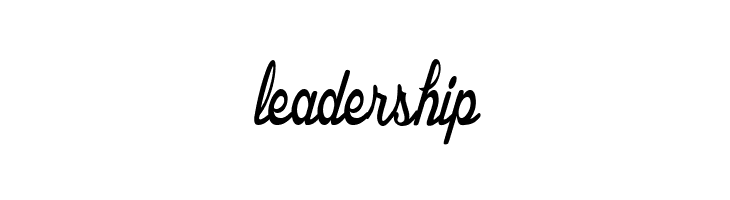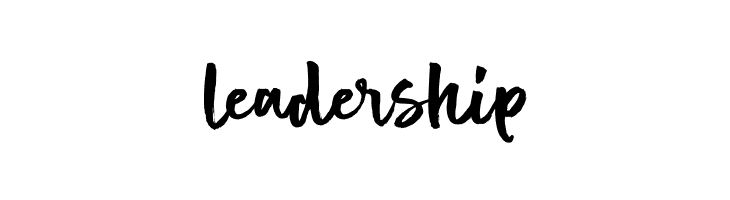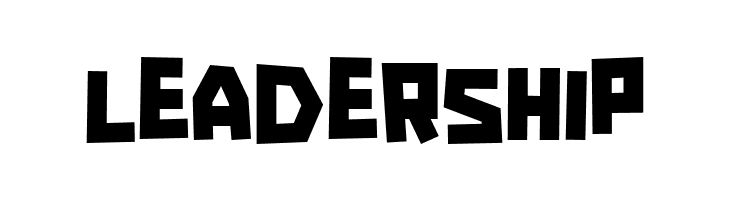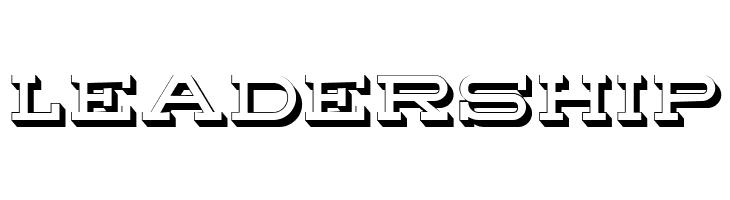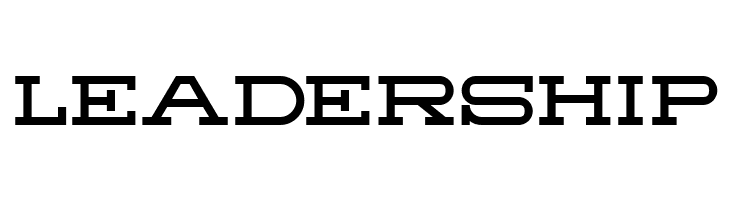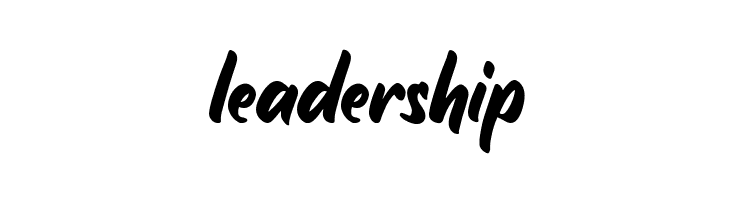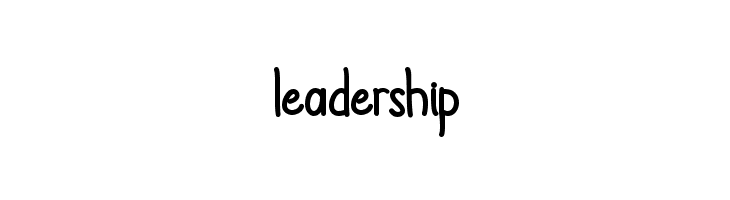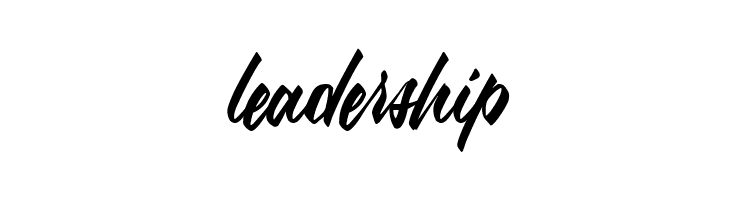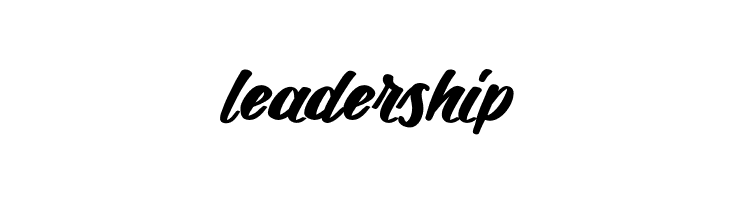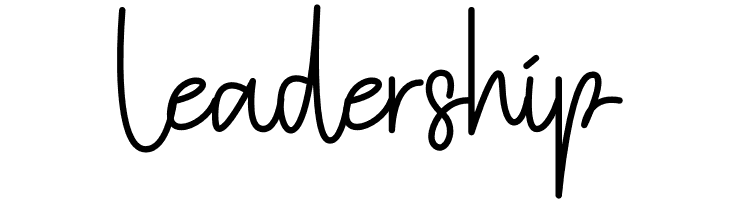
A playful, bold, and handwritten-style font with rounded strokes.
A bold, decorative font with integrated flame motifs for a fiery appearance.
A bold, expressive handwritten font with dynamic brush strokes.
A modern, geometric font with tall, narrow characters and consistent stroke width.
Tall, playful handwritten script with loose, flowing lines.
A playful, hand-drawn font with irregular, organic shapes and varying stroke thickness.
A bold, textured font with a hand-drawn, sketch-like appearance.
A bold, decorative font with a textured outline and dynamic style.
A bold, distressed font with a vintage, textured appearance.
A bold, textured font with diagonal lines for a modern, impactful look.
A bold, decorative font with vintage-inspired flourishes and artistic elements.
A bold, rounded font with a modern and playful aesthetic.
A bold, rounded font with a playful and retro vibe.
A playful, rounded font with a retro vibe and consistent stroke width.
A playful and eclectic font with bold and thin strokes, perfect for creative projects.
A sophisticated and fluid script font with a handwritten appearance.
A bold, jagged font with a fiery, energetic design.
A bold, angular font with a modern, edgy style.
A bold, dynamic script font with a handwritten, energetic style.
A bold, geometric font with a modern and technical style.
A bold, three-dimensional font with a geometric and modern style.
A bold, flowing script font with dynamic, connected letters.
A bold, cursive font with high contrast and fluid, interconnected letters.
A bold, slab serif font with a vintage, collegiate style.
A bold, textured font with a rock-like, decorative style.
A bold, hand-painted style font with an italicized, energetic appearance.